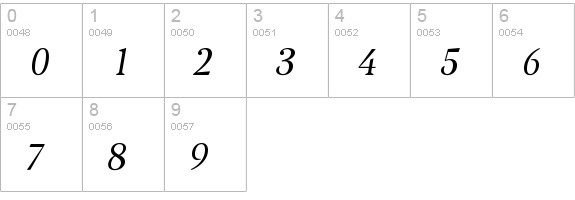
PFRegalTextPro-RegularBItalic font is a sophisticated and elegant typeface that exudes a sense of refined style and professionalism. With its graceful italics and classic design, this font is perfect for adding a touch of sophistication to any project. Whether you are working on a formal document, elegant invitations, or stylish branding materials, PFRegalTextPro-RegularBItalic font will elevate your design with its timeless appeal. And the best part? This exquisite font is available for free download at FontsMarket.com. Access this versatile typeface and enhance your projects with its premium quality and distinctive charm. Elevate your typography game and make a lasting impression with PFRegalTextPro-RegularBItalic font – all at no cost to you.